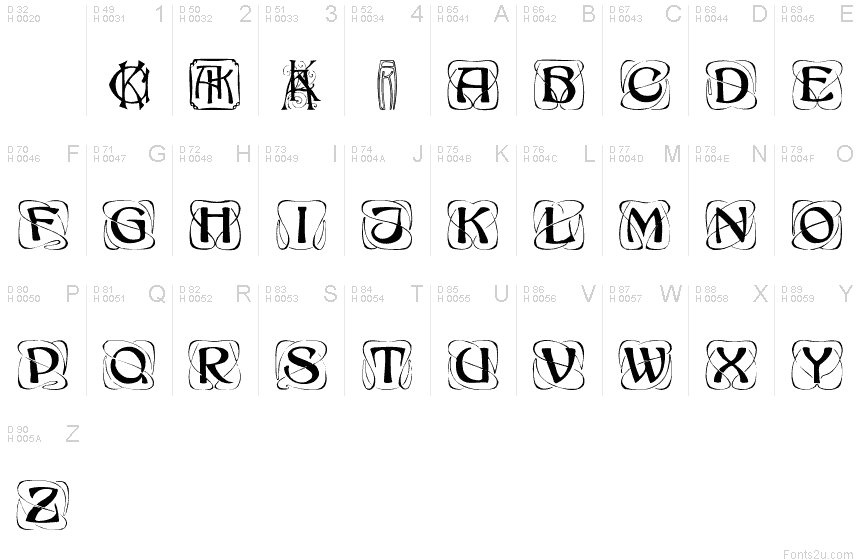
KhachaturianCaps
Khachaturian Caps font by A. Mendoza is a free decorative display typeface with a bold, theatrical personality. Each letter sits inside a soft, square frame, like an inked tile with sweeping, hand-drawn curves running through it. The contrast between the dense, brushy letterforms and the fine, wandering outlines gives the type a tactile, almost carved feel—dramatic without being stiff.
This free font shines on book covers, experimental posters, album art, handcrafted packaging, title cards, and quirky logos where you want every character to feel like its own emblem. Using Khachaturian Caps large and generously spaced lets the swirling frames breathe; pair it with a clean geometric sans in small text to keep layouts readable while the letters do the storytelling.